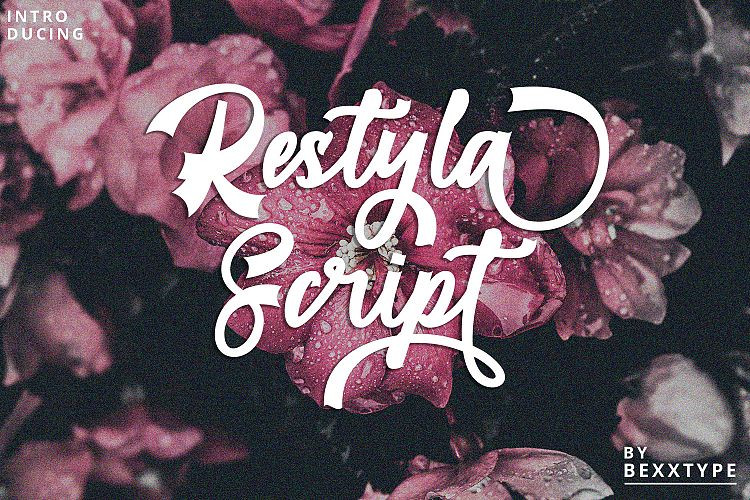
Restyla Script Font
A stylish calligraphy font that features a varying baseline, smooth line, classic and elegant touch. Introducing Restyla Font. It’s a new fresh & modern script with a handmade calligraphy style, decorative characters and a dancing baseline! So beautiful on invitation like greeting cards, branding materials, business cards, quotes, posters, and more!! Restyla Script come with 496 glyphs. The alternative characters were divided into several Open Type features such as Swash, Stylistic Sets, Stylistic Alternates, Contextual Alternates.